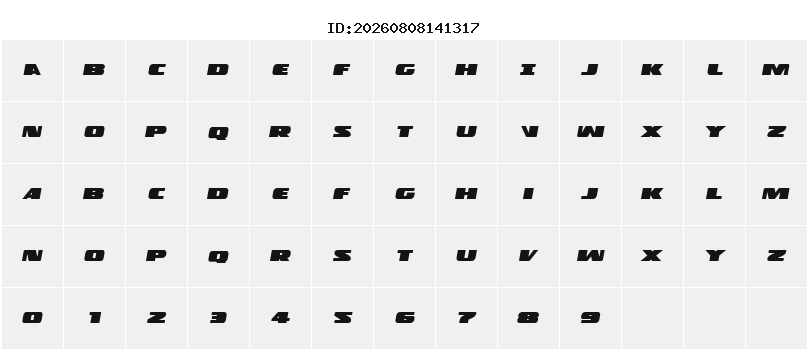
Police Cruiser Expanded Italic Preview
• Font Name: Police Cruiser Expanded Italic
• Font Style: Expanded Italic
• Full Font Name: Police Cruiser Expanded Italic
About Police Cruiser Expanded Italic.ttf
Police Cruiser Expanded Italic.ttf is a modern, elegant sans-serif font designed for ultimate readability and visual harmony. Perfect for branding, headlines, web design, and print materials.